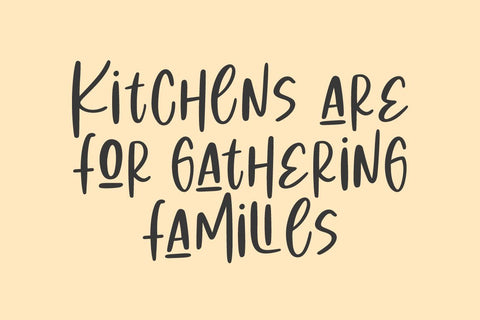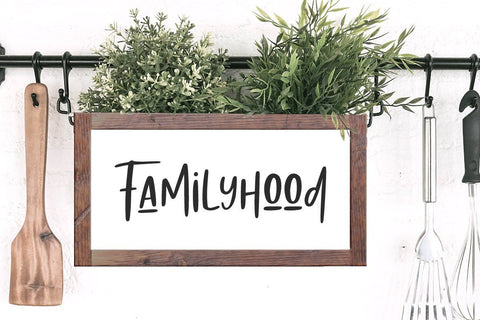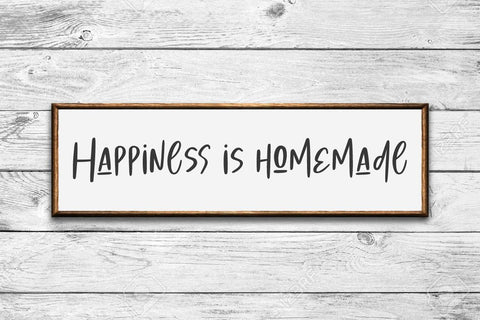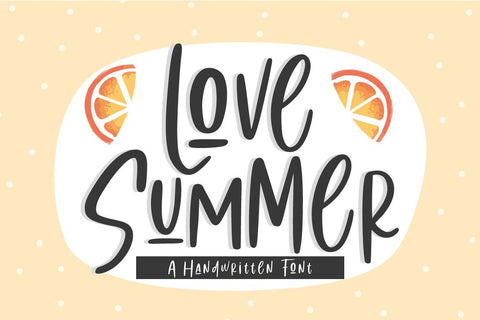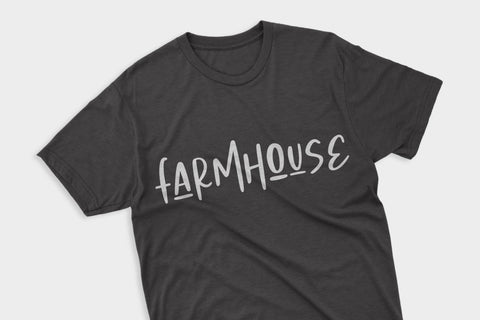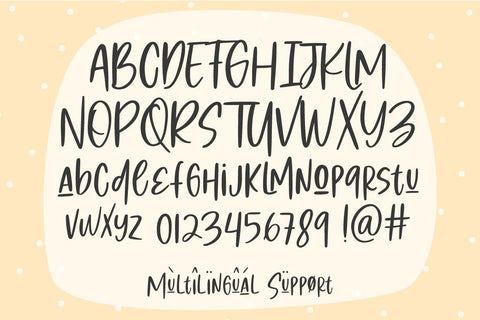
Love Summer | Handwritten Font
Love Summer is a playful handwritten font, this font perfect for branding, packaging, casual, kids design, playful design, fun design, website, logos, apparel, and more!
Multilingual support:
ÁÂÄÀÅÃÆÇÉÊËÈÍÎÏÌÑÓÔÖÒØÕŒŠÚÛÜÙÝŸŽ